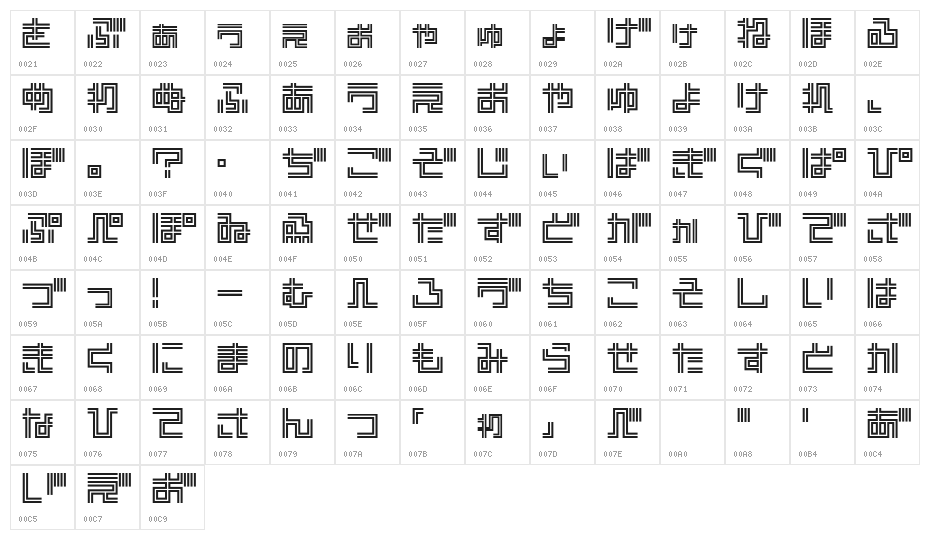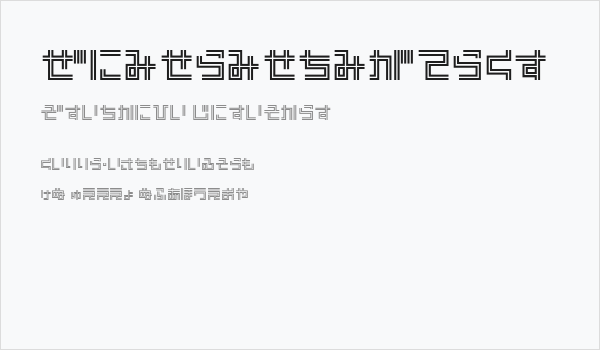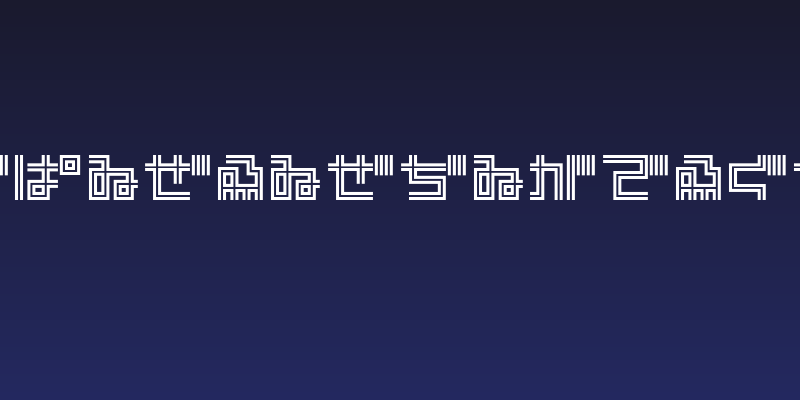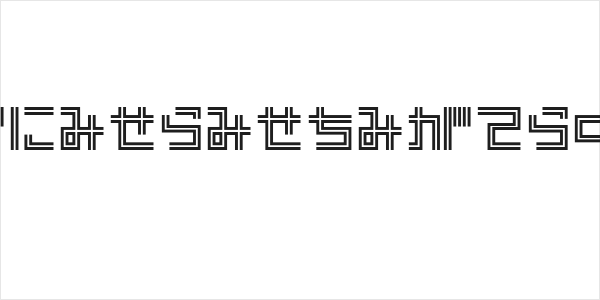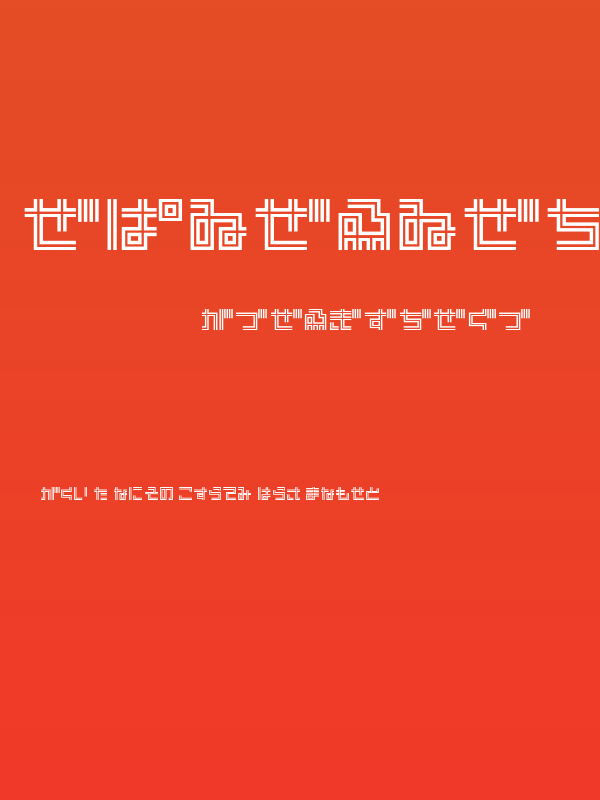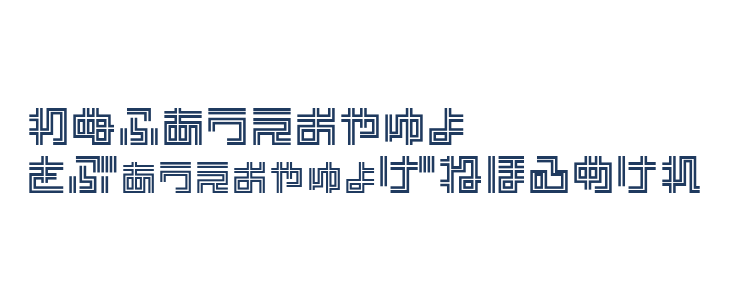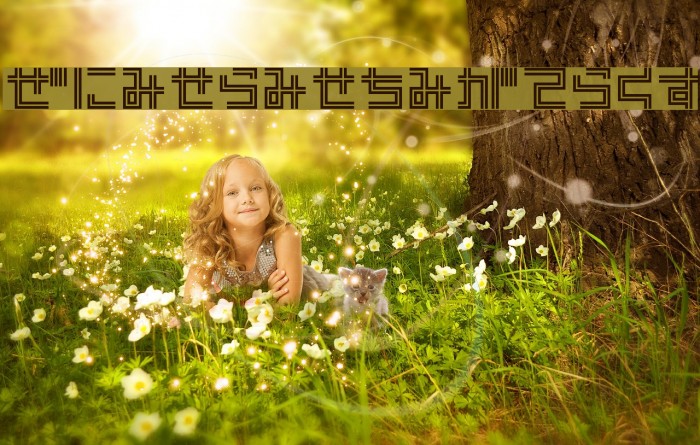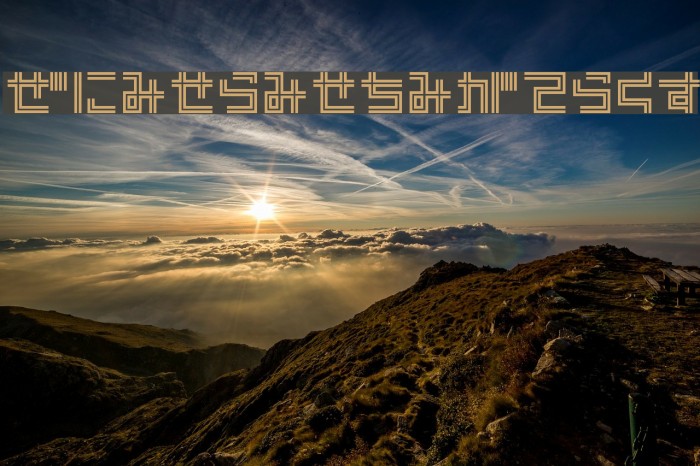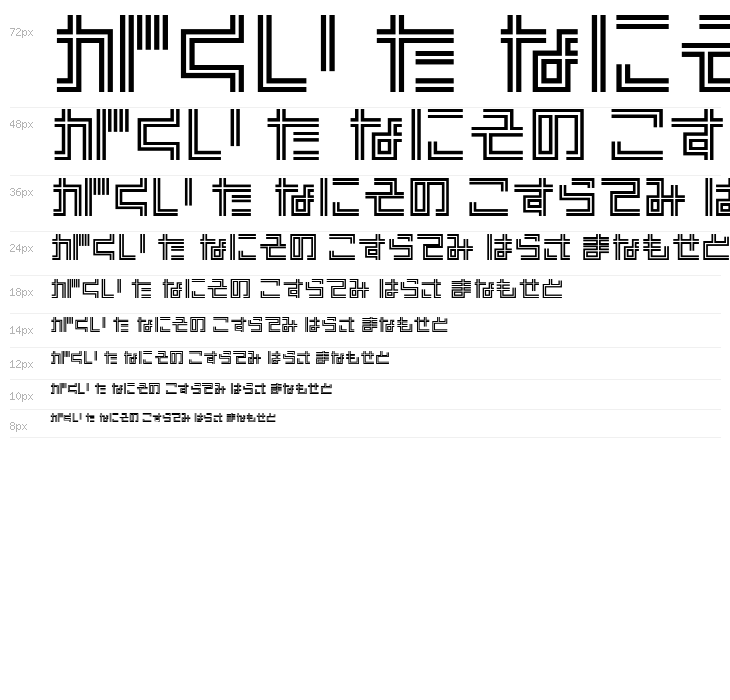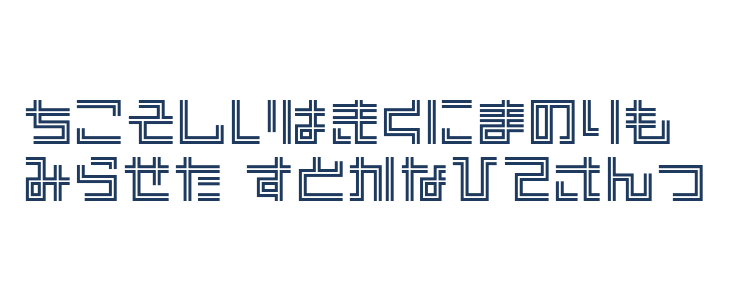
PinponpanTwohr Font
PinponpanTwohr Description
This font features a unique, geometric design with a distinct three-line stroke pattern that creates a bold and modern appearance. Each character is constructed with parallel lines, giving it a structured and futuristic look. The font maintains a consistent width across all characters, enhancing its uniformity and readability. Its angular and linear style makes it stand out, suitable for projects that require a contemporary and eye-catching typeface. The font's design is both artistic and functional, making it versatile for various creative applications.